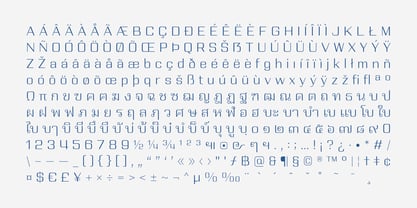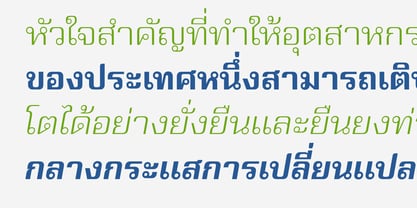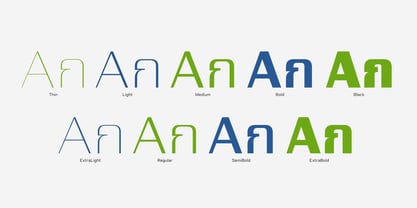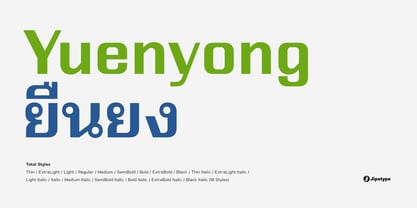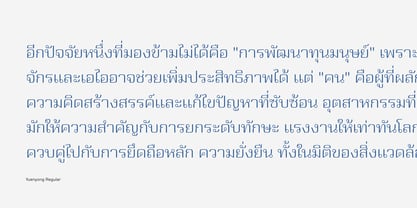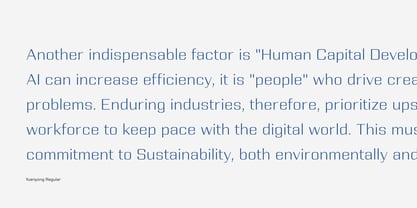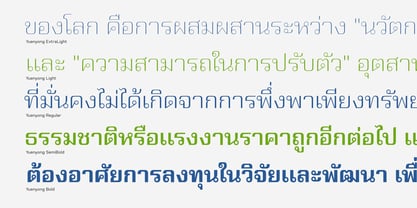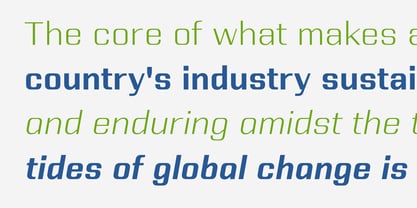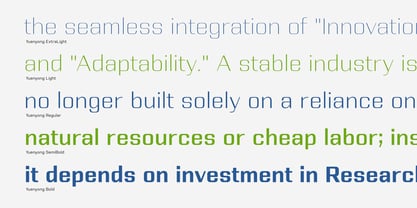
Yuenyong
by Jipatype
The Yuenyong Font Family was designed by Anupap Jaichumnan and published by Jipatype. Yuenyong contains 18 styles and family package options. More about this family
Yuenyong (Thai for "Enduring" or "Lasting") is a versatile typeface family designed around the concept of unwavering strength. Its core identity is derived from a sturdy rectangular structure, a geometric form that universally symbolizes stability, solidity, and a strong foundation. This fundamental shape gives the font a distinctively technical and industrial character, making it an ideal choice for brands that wish to communicate reliability and longevity. Despite its boxy roots, Yuenyong is carefully refined with subtle rounded corners and humanist nuances to ensure it remains friendly and approachable. The family features a looped Thai script that pairs seamlessly with its geometric Latin counterpart. The inclusion of the traditional loops enhances legibility and familiarity for Thai readers while maintaining a modern aesthetic through its rectangular construction. This harmonization allows for a consistent visual rhythm in multilingual designs, maintaining clarity across all mediums—from large-scale environmental signage to high-density text on digital screens. With a comprehensive range of 18 styles—spanning from a delicate Thin to a powerful Black, complete with matching Italics—Yuenyong offers exceptional flexibility for designers. Its blend of architectural rigidity and modern softness makes it perfectly suited for corporate identities, technology startups, automotive branding, and editorial layouts that require a look of sophisticated stability.
Designers: Anupap Jaichumnan
Foundry: Jipatype
Yuenyong